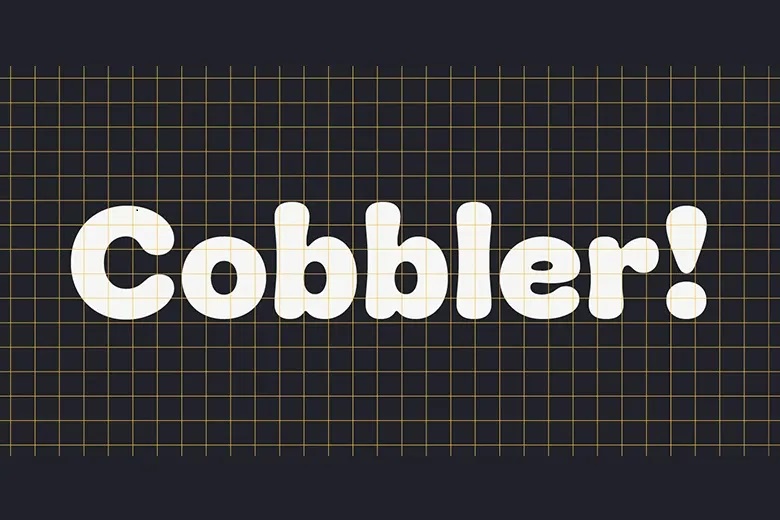
Cobbler is a modern sans serif font family which has nicely rounded corners on all its glyphs. With the geometric proportions, Cobbler is a modern sans serif on the in and a very warm display font on the out. No one hard edge and only a handful of straight lines give Cobbler added warmth and comfort. Indeed, only a few straight horizontal strokes are included in the design, giving the typeface the reliability of a workhorse yet keeping the oozing playfulness of Cobbler so apparent.
And to make all this even more fun, there is a pile of OpenType features included. For instance Discretionary Ligatures that design capital letters where they meet at the left and right side – fun! Or automatic fractions, case sensitive punctuation and contextual alternates – for serious typesetting.
Cobbler Sans Serif Font Family